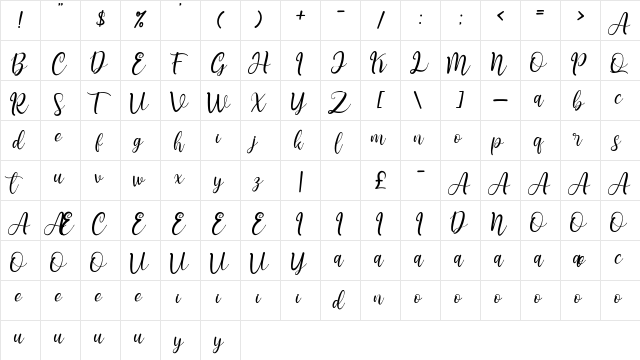
Teressia Script Regular
| Foundry | StudioAKTYPE |
| Designer | Jani Nurman |
Design Context for Teressia Script Typeface
Teressia Script brings a calligraphic fluidity to the page — its connecting strokes and expressive curves give it an unmistakably human quality.